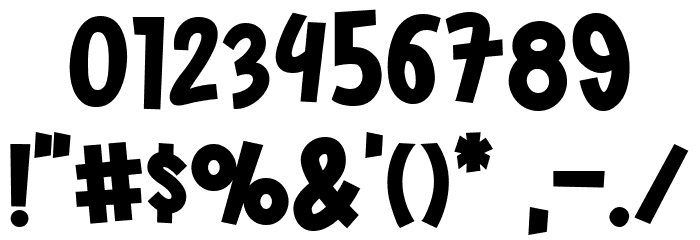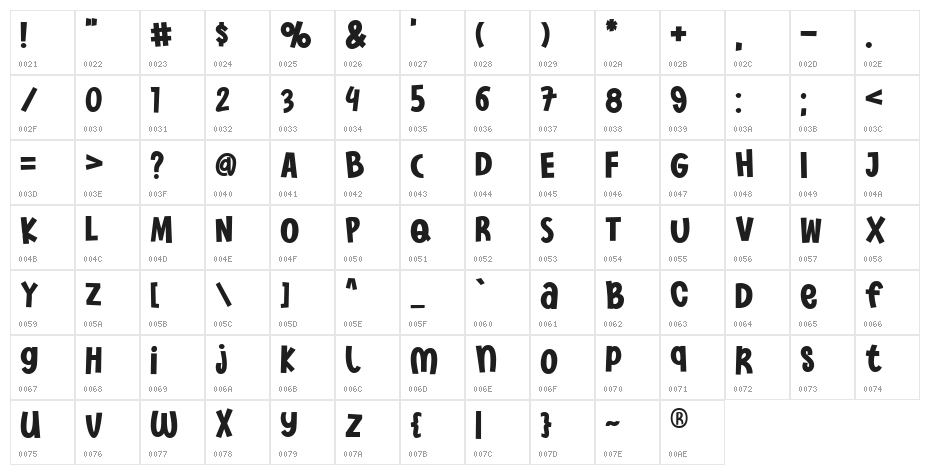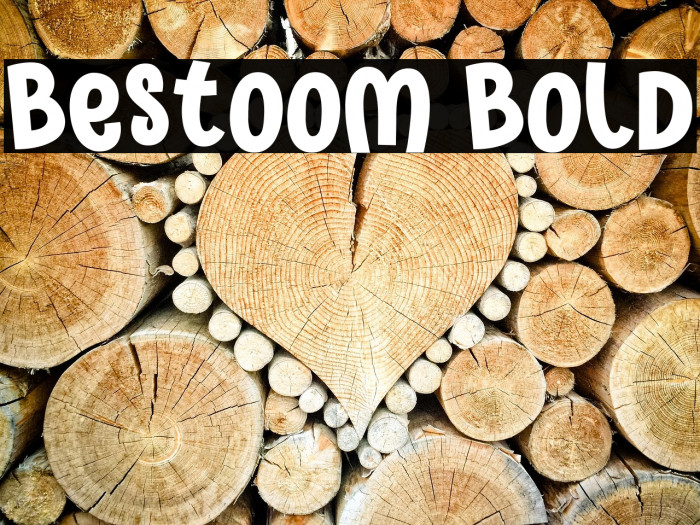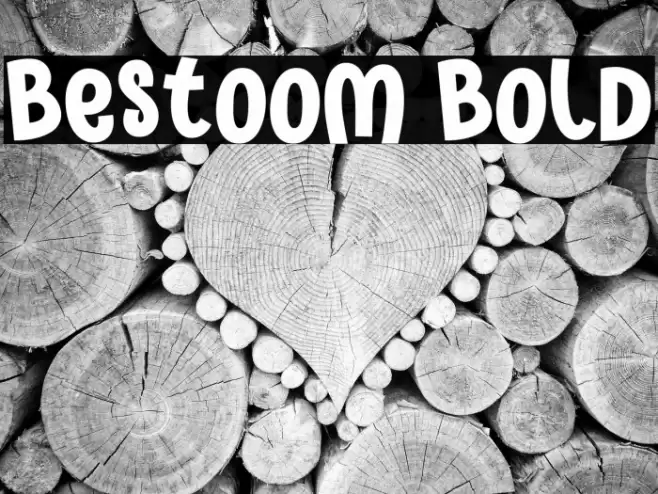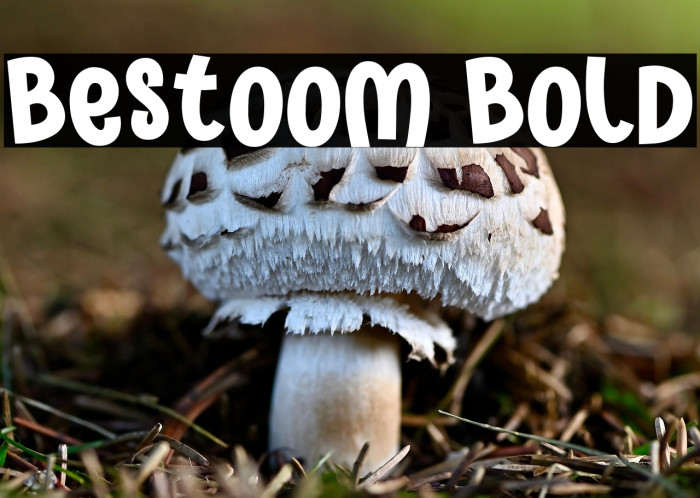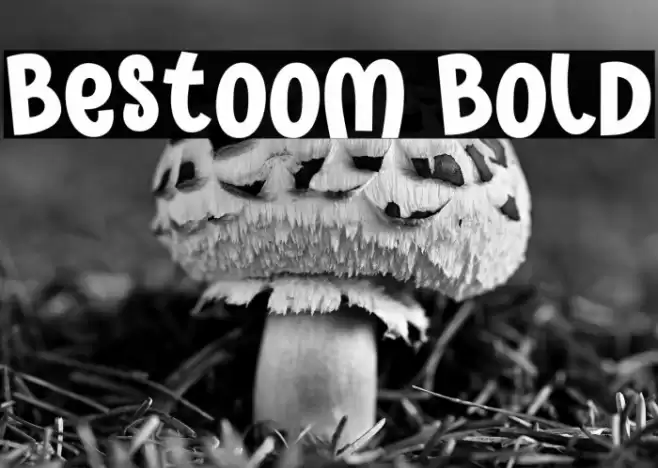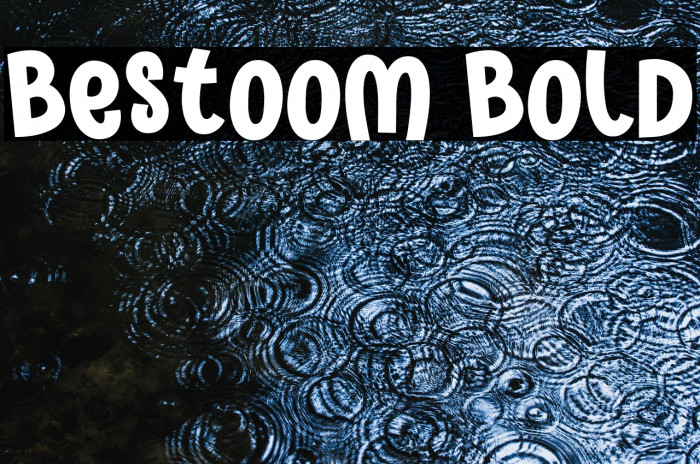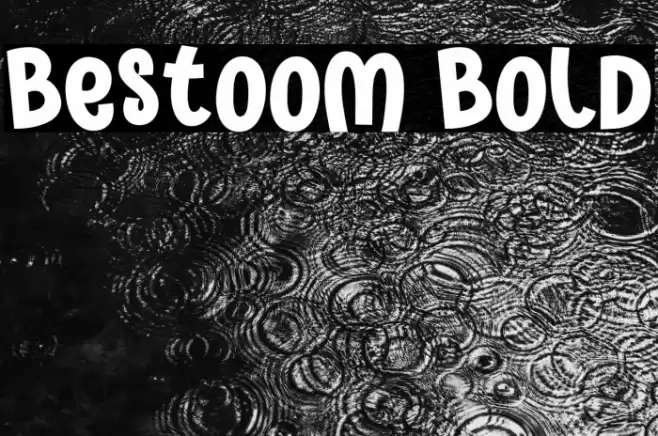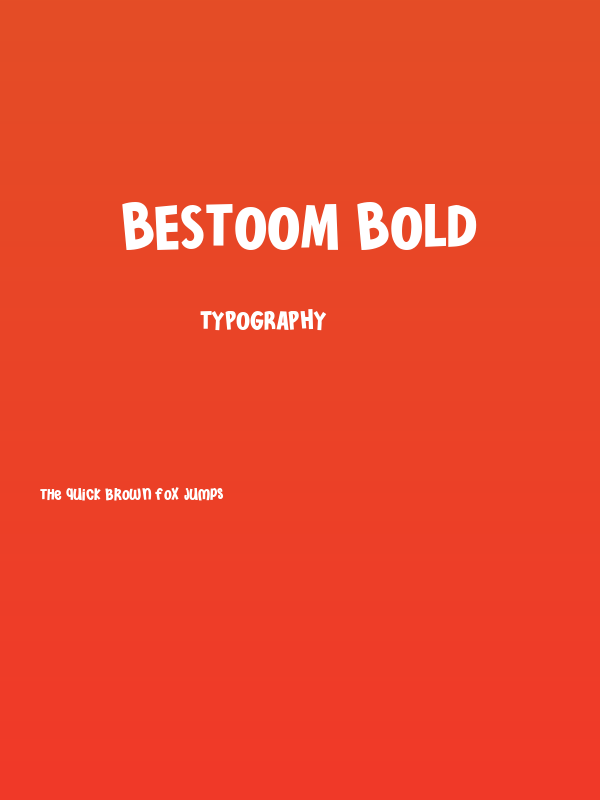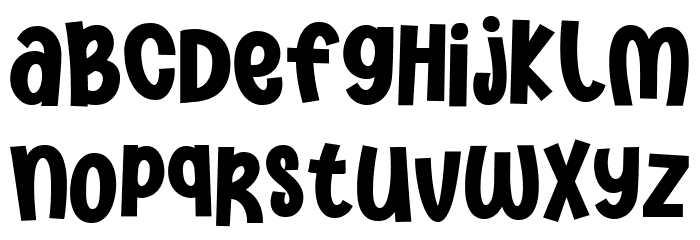
Bestoom Bold Font
Bestoom Bold Description
This font features a bold and playful design, characterized by its thick, rounded strokes and slightly irregular shapes. The letters have a whimsical and energetic appearance, making them stand out with a sense of fun and creativity. The uppercase and lowercase letters maintain a consistent style, with a slight tilt that adds to the dynamic feel. Numbers and special characters are designed to match the overall playful aesthetic, ensuring a cohesive look across all text elements. The font's boldness and unique style make it suitable for eye-catching designs.
| Overall Style | Playful, Energetic, Whimsical |
| Proposed Projects | Ideal for children's books, playful branding, posters, and creative advertising. |